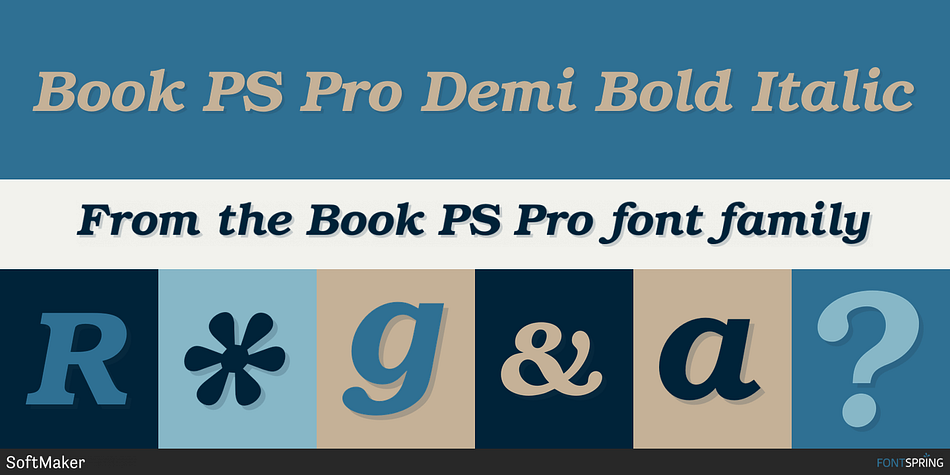
Book PS Pro Demi Bold Italic
Book PS Pro is a serif font family. This typeface has four styles and was published by SoftMaker.
Book PS Pro is a serif typeface. A wide, legible design that is slightly bolder than most body text faces, Book PS Pro has been used for both display typography and for printing at small sizes such as in trade printing, and less commonly for body text. In advertising use, it is particularly associated with the graphic design of the 1960s and 1970s, when revivals of it were very popular.